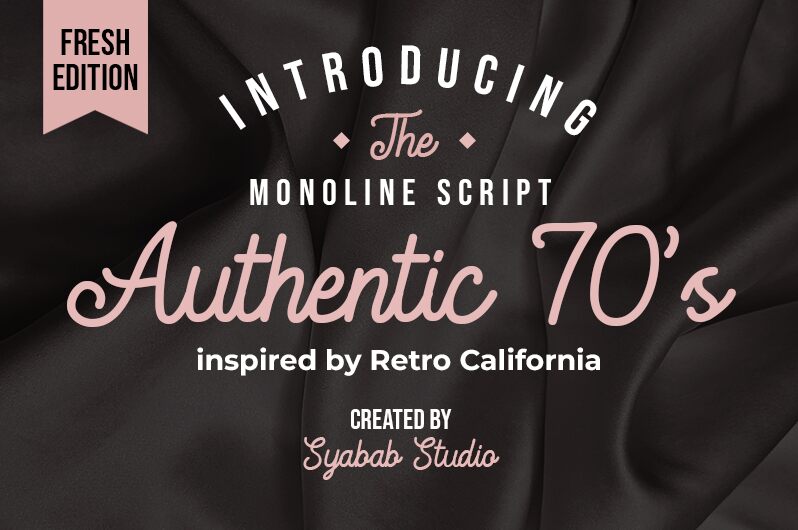
Authentic 70's font by syabab is a free script font inspired by and dedicated to the 70s! The typeface is designed to bring the best of this era’s style to your projects and comes with special characters and ornaments. Notice the beautiful elongated swashes and vertical emphasis of this single-font family, an element many fonts lack nowadays.
Take your 70s-inspired designs to a whole other level, and pair the font with the typical groovy and psychedelic patterns and colors recognizable by almost anyone. Usage of this font can include album covers, posters, logotypes, branding, advertisements, and more.